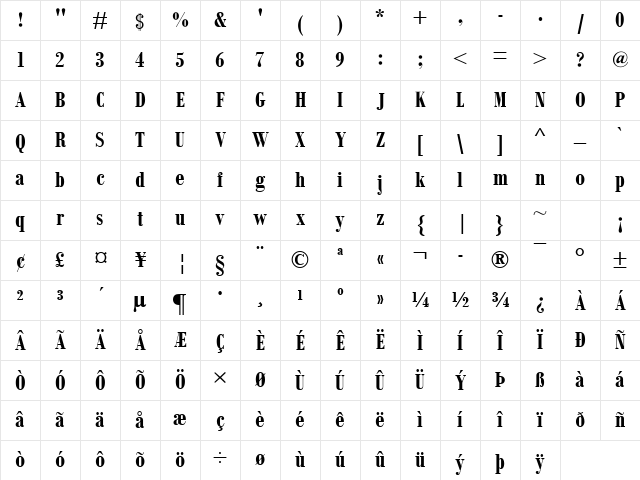
Bodoni MT Condensed Bold
Foundry: Monotype Typography
Design Context for Bodoni MT Condensed
Bodoni MT Condensed is a composed and adaptable typeface that performs quietly and consistently across a wide range of design contexts. Its bold stroke weight gives it real presence on the page. Its narrow stance lets it pack a punch even in space-constrained designs.
Pro Tip: Use Bodoni MT Condensed in both headline and body roles to test its range before committing to a single application.